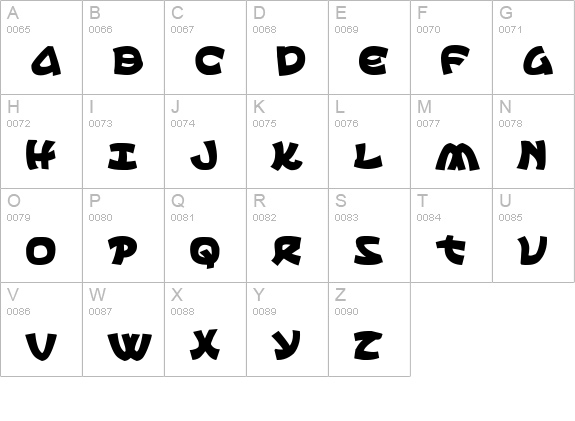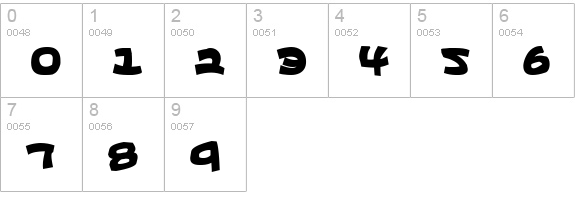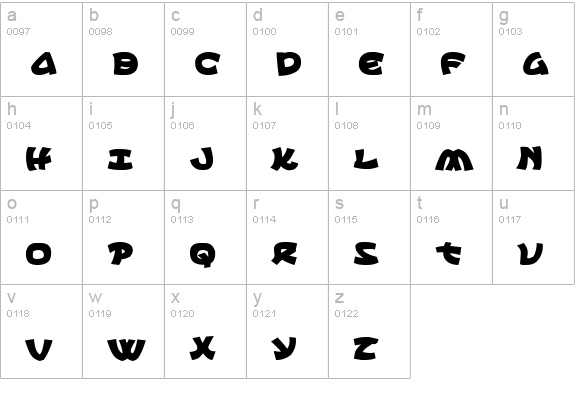
Ephesian CondBold font is a striking display typeface that exudes confidence and modernity. With its bold and distinctive letterforms, this font is perfect for creating eye-catching headlines, posters, and branding materials. The strong, sleek lines of Ephesian CondBold make it a standout choice for any design project that requires a bold statement. The best part? Ephesian CondBold font is available for free download at FontsMarket.com. That's right, you can easily access this stylish font and elevate your designs without breaking the bank. Whether you're a seasoned designer or just starting out, Ephesian CondBold is a versatile and dynamic font that will add a touch of sophistication to your projects. Download it today and unleash your creativity with this exceptional typeface.